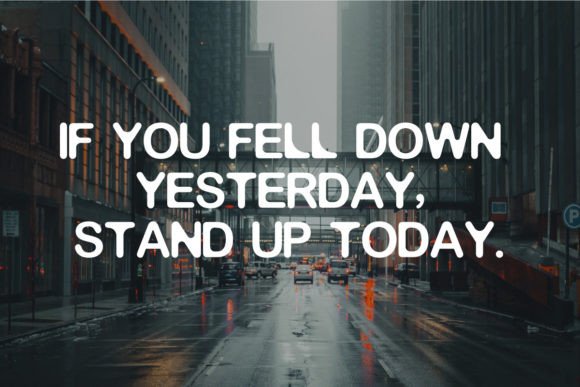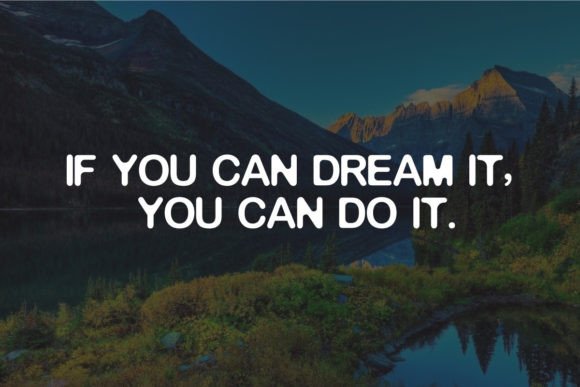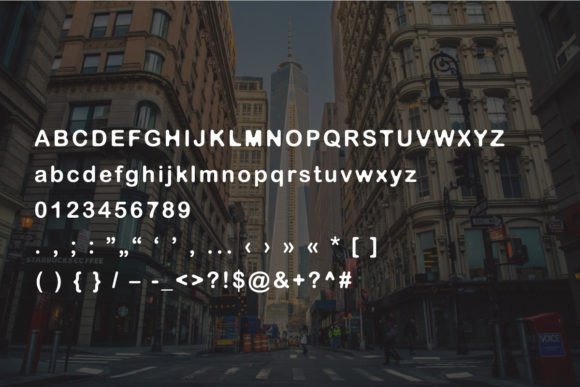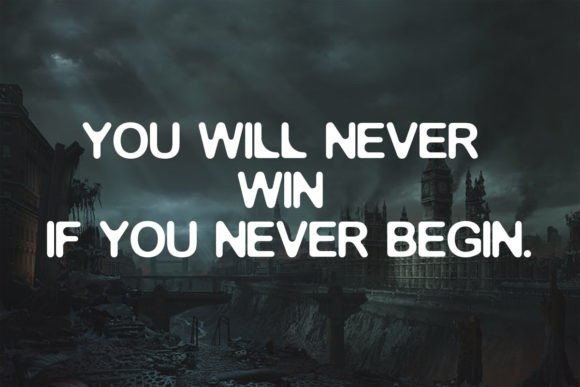
Introduction to Jinus Font
Jinus is a fun and friendly display font.
It has a modern yet whimsical style and it will undoubtedly immerse your designs into a magical world .
Key Features of Jinus Font
Why Choose Jinus Font?
Jinus Font offers exceptional quality and versatility, making it a valuable addition to your design toolkit. Whether you’re creating for personal projects or commercial use, Jinus Font delivers professional results.